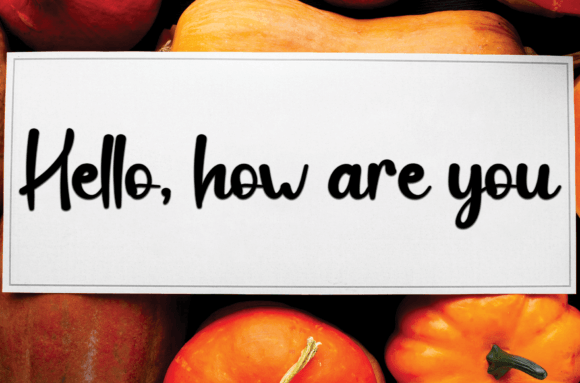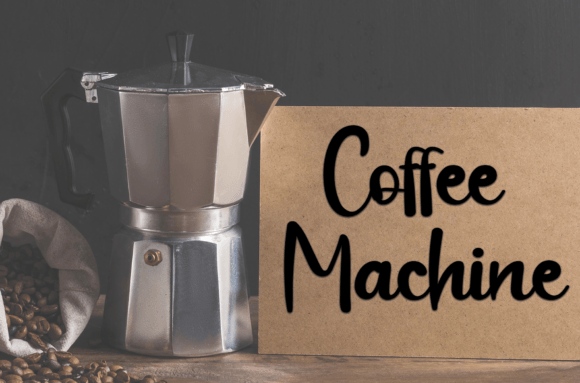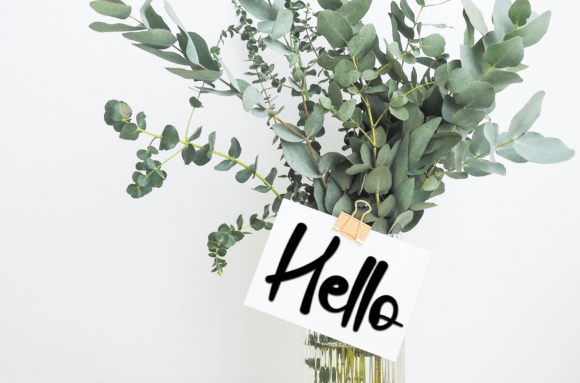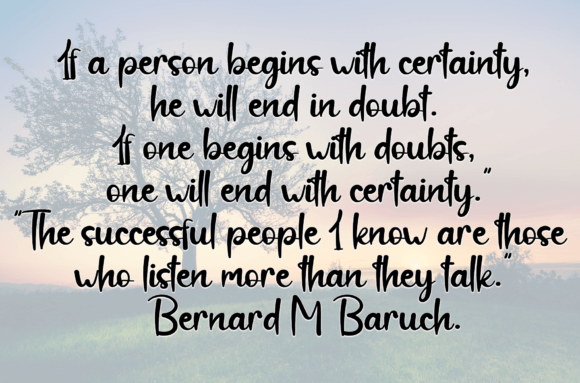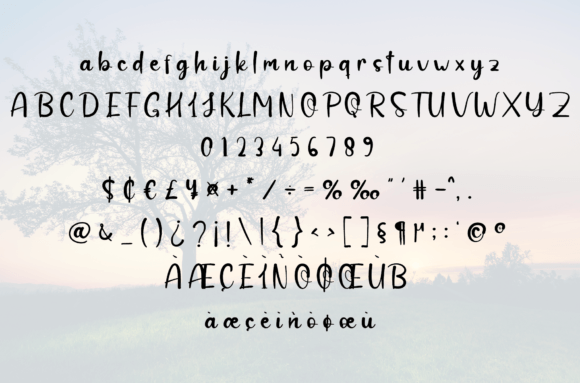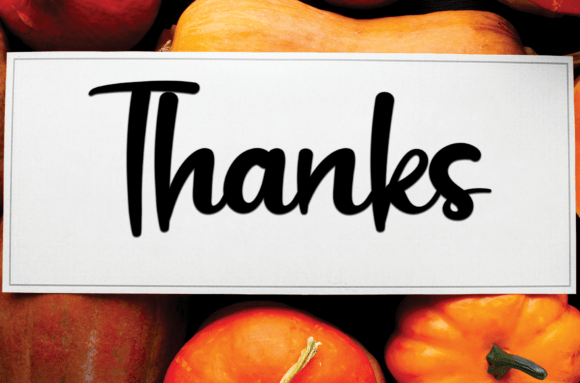
Amellia Hellina Font
About Amellia Hellina Font
Amellia Hellina Font is a sweet and friendly handwritten typeface designed to add warmth and charm to your creative projects. Its fun and relaxed style makes it perfect for designs that need a personal, lovely touch. Whether you’re creating wedding invitations, greeting cards, or personalized stationery, Amellia Hellina brings a heartfelt handcrafted feel that enhances your designs.
Ideal for Special Occasions and Everyday Creativity
Amellia Hellina’s casual and approachable style is perfect for special events like weddings, birthdays, and anniversaries. Its flowing strokes and soft curves evoke feelings of joy and intimacy, making every design feel unique and memorable.
Beyond formal occasions, this font also works wonderfully for everyday creative projects such as scrapbooking, journaling, social media graphics, and branding for boutique businesses that emphasize a handmade or artisanal aesthetic.
Why Choose Amellia Hellina Font?
Amellia Hellina stands out for its:
• Friendly and rounded letterforms that convey warmth and kindness
• Well-balanced design ensuring readability at various sizes
• Versatility across both digital and print media
These features make Amellia Hellina a go-to font for both professional designers and creative hobbyists.
Add Personality and Warmth to Your Designs
Typography plays a crucial role in setting the emotional tone of your message. Amellia Hellina’s handwritten style adds personality and warmth, helping your designs feel more personal and heartfelt. It makes wedding invitations feel intimate, cards more touching, and branding more authentic.
With Amellia Hellina, your projects will communicate sincerity, friendliness, and charm that make a lasting impression.
Versatile Applications of Amellia Hellina Font
Amellia Hellina adapts beautifully across a wide range of design contexts, including:
• Wedding invitations and save-the-date cards
• Branding for handmade and boutique products
• Social media graphics and inspirational quotes
• Product packaging and labels
• Personalized gifts and DIY projects
Its relaxed elegance allows it to suit both playful and sophisticated themes seamlessly.
In conclusion, Amellia Hellina Font is a delightful handwritten script that blends friendliness, charm, and elegance. It is perfect for adding a lovely and personal touch to a variety of creative projects. Whether you are designing for weddings, special events, or everyday needs, Amellia Hellina helps you express your message with warmth and style.